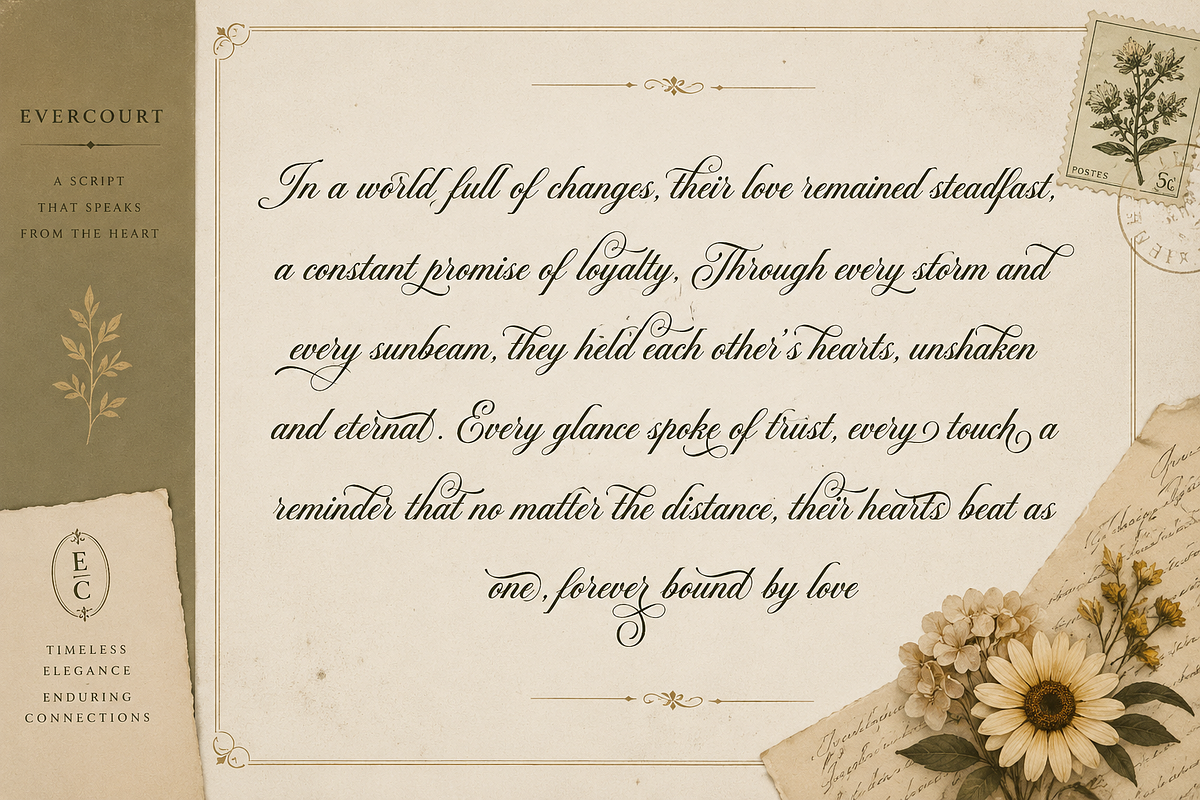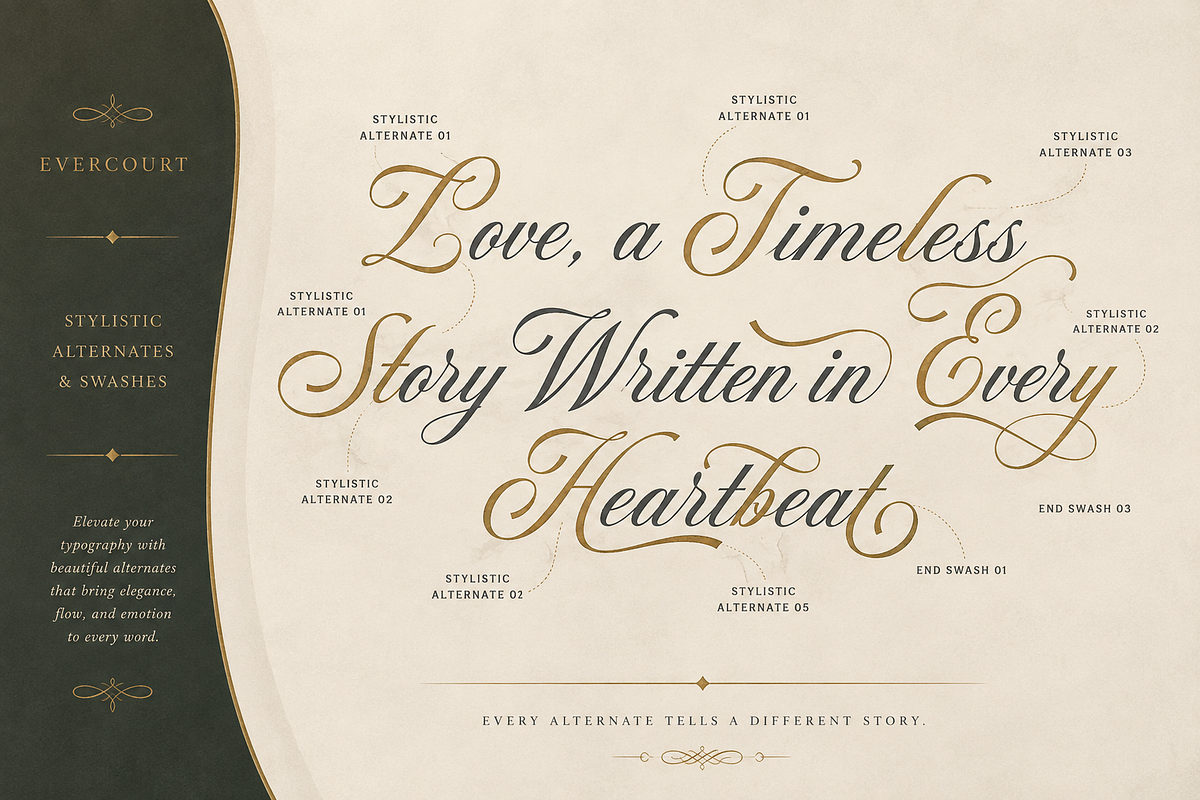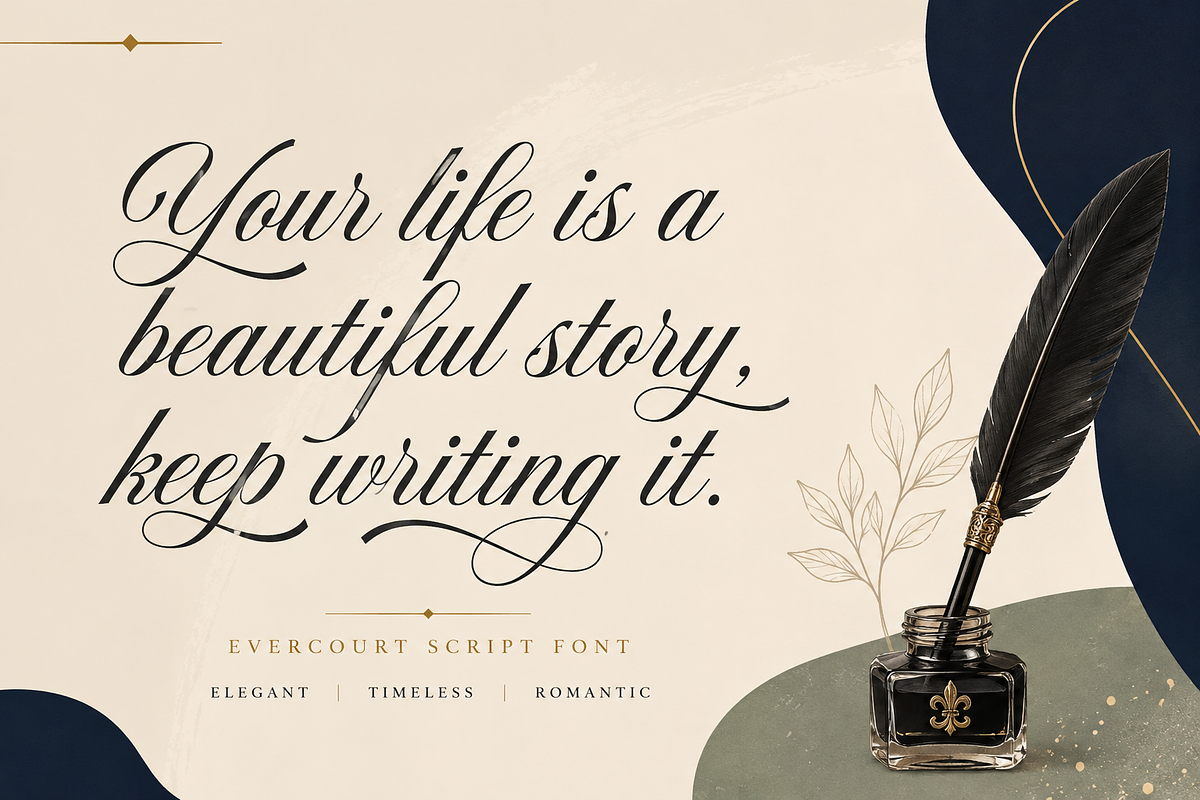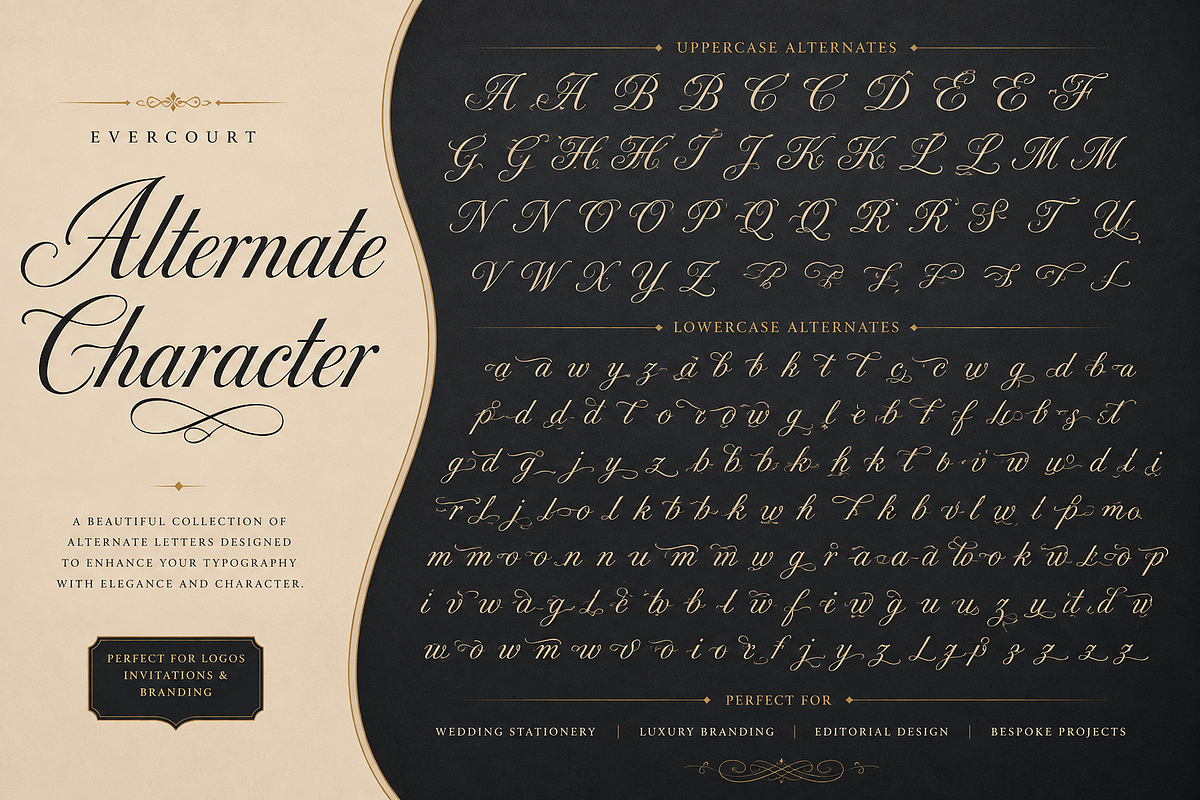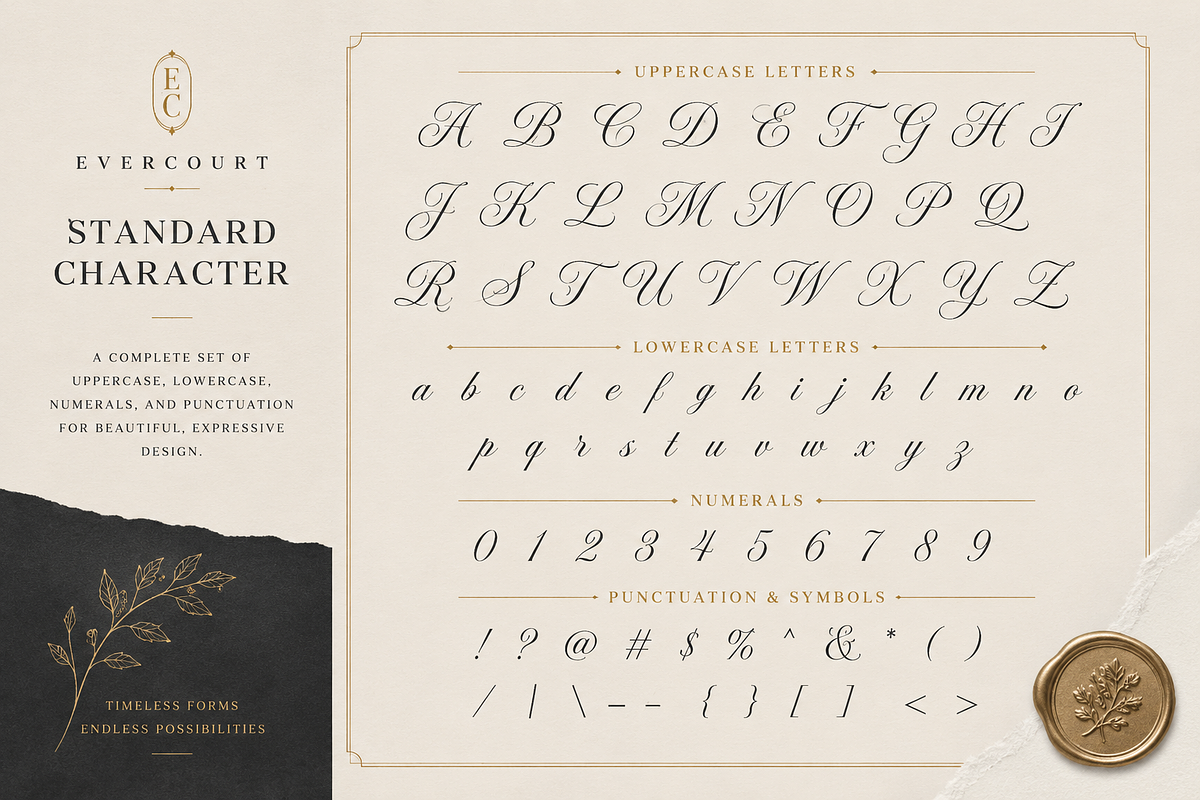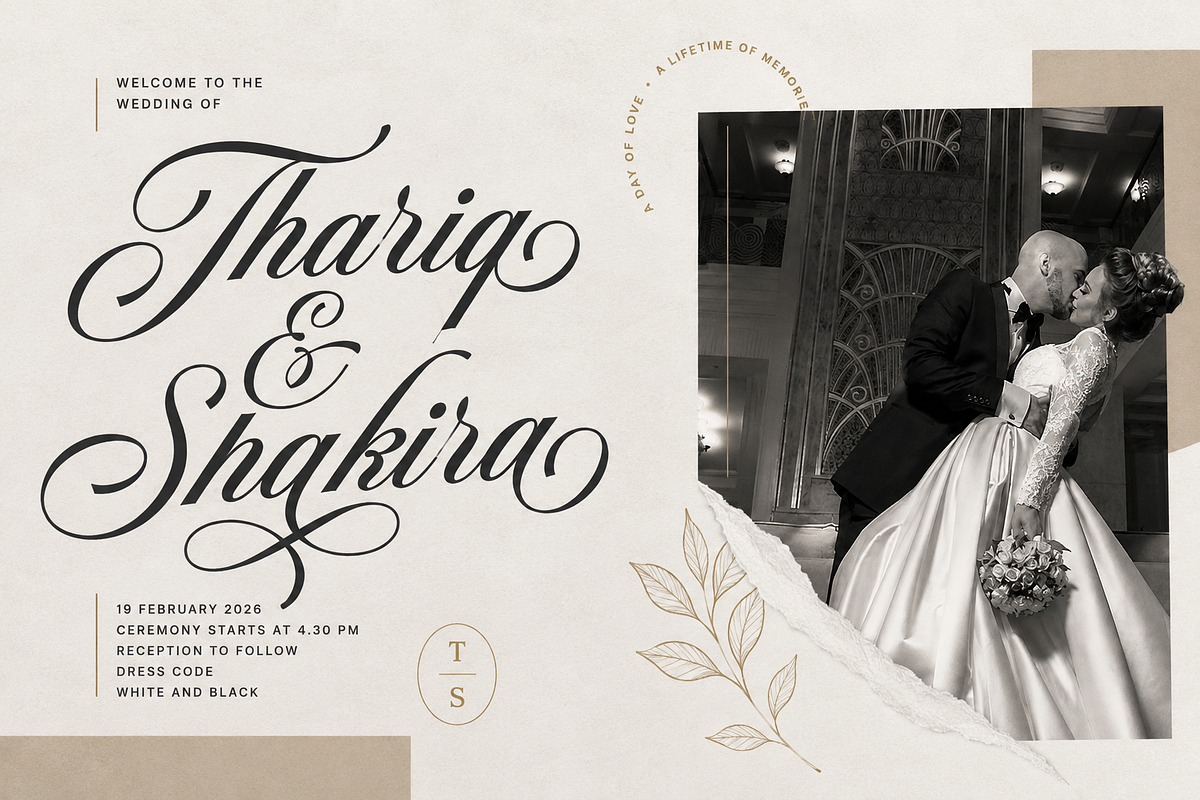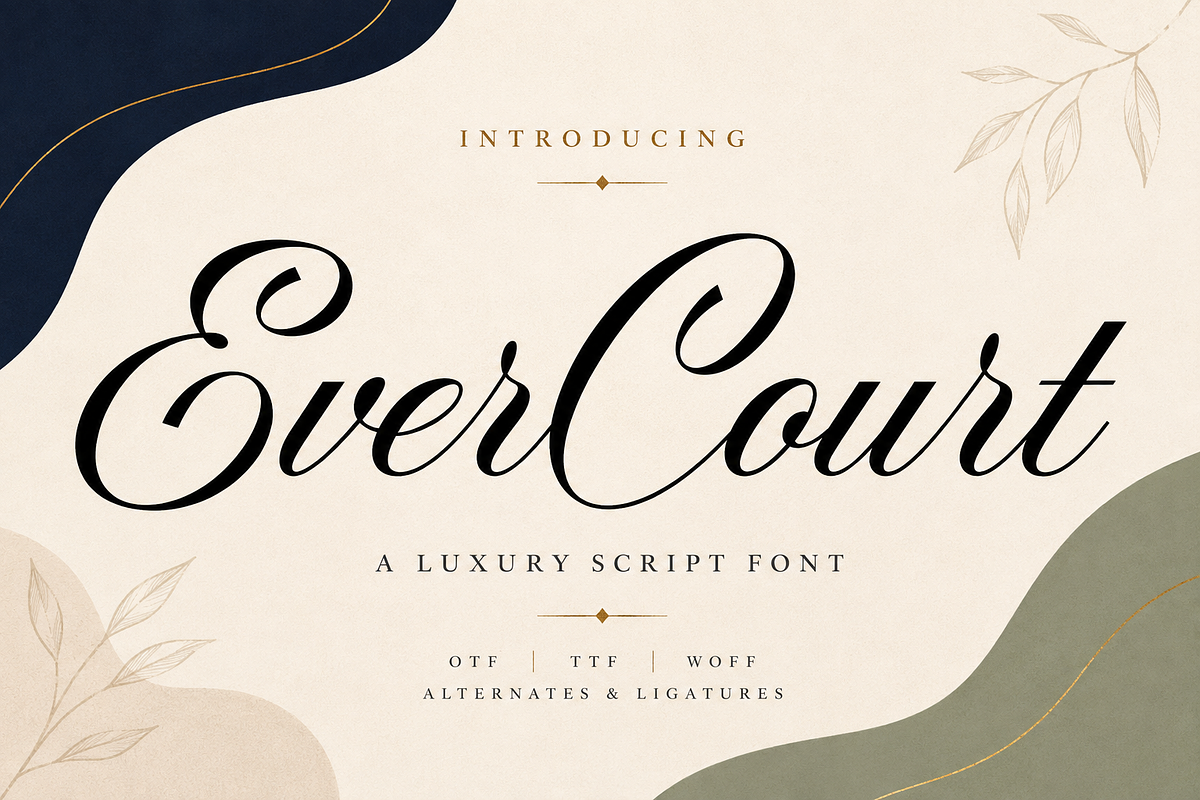
Evercourt - Romantic Script Font
Evercourt is a romantic script font built on sweeping swash capitals, connected lowercase forms, and expressive alternates - the kind of calligraphy font that turns wedding invitations, brand identities, and editorial layouts into something people stop to read. It behaves like a handwritten font in the warmth of its strokes, with a flowing rhythm that feels drawn, not constructed.
Ornamental swashes: End swashes on select characters give invitations, monograms, and logos that finished, letterpress-style flourish.
Stylistic alternates (ss01-ss06): Six stylistic sets swap in different capitals and lowercase forms, so no two wordmarks have to look the same.
363 glyphs with GSUB/GPOS: OpenType substitution and positioning data keep letter pairs balanced from logo lockups to full editorial spreads.
Where it shines
This is an elegant script font made for projects where emotion decides everything: wedding invitations and save-the-dates, stationery suites, monograms, product packaging, brand logos, editorial pull quotes, greeting cards, and love-letter-style social captions. Pair the connected lowercase with the swash capitals and Evercourt behaves like a complete branding system for romance-driven brands.